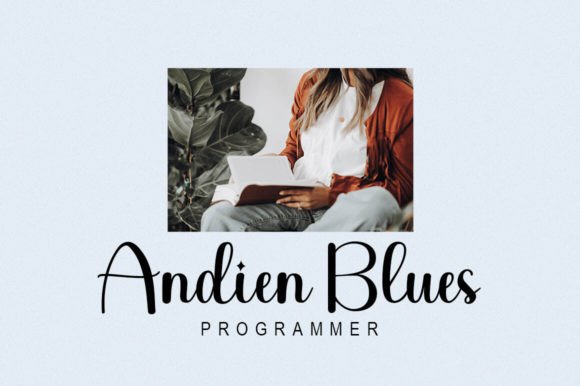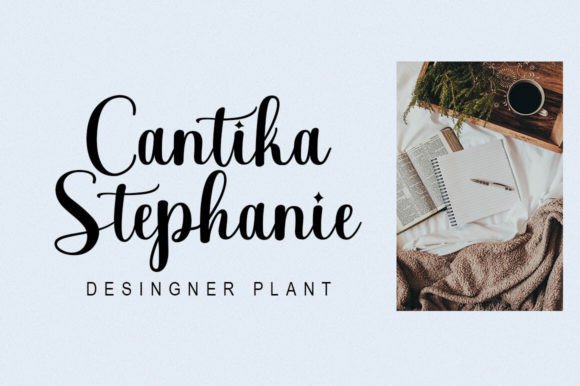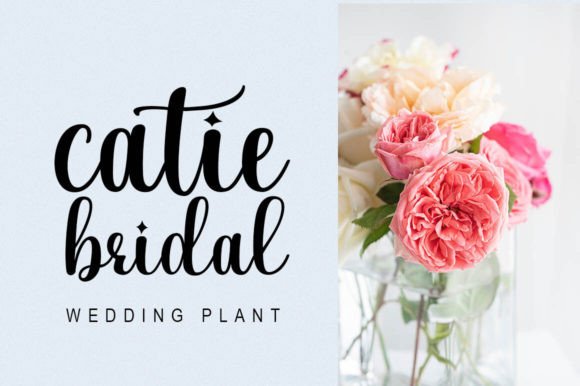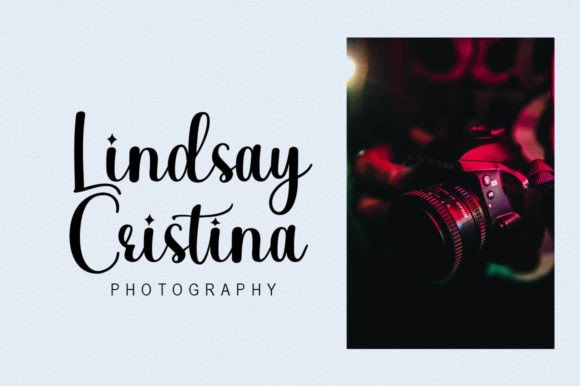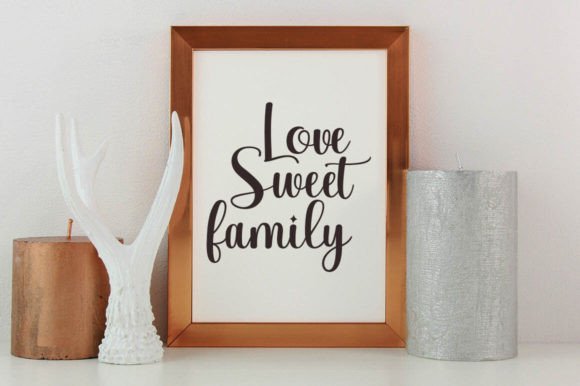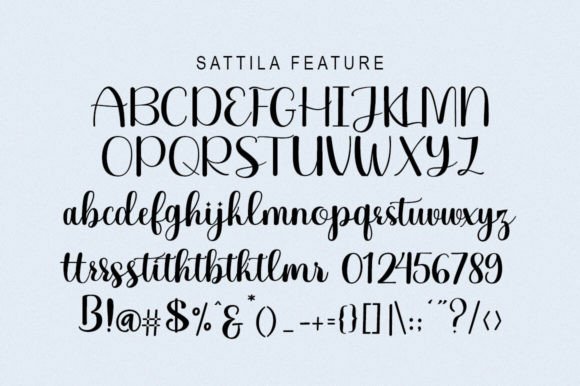
Introduction to Sattila Font
Sattila is an elegant script with a creative mood and perfect form, inspired by today’s beautiful calligraphy.
thick, balanced, and varied, born for luxury and beauty It’s great for logotypes, branding, wedding invitations, romantic cards, alcohol labels, packaging, name spelling and more.